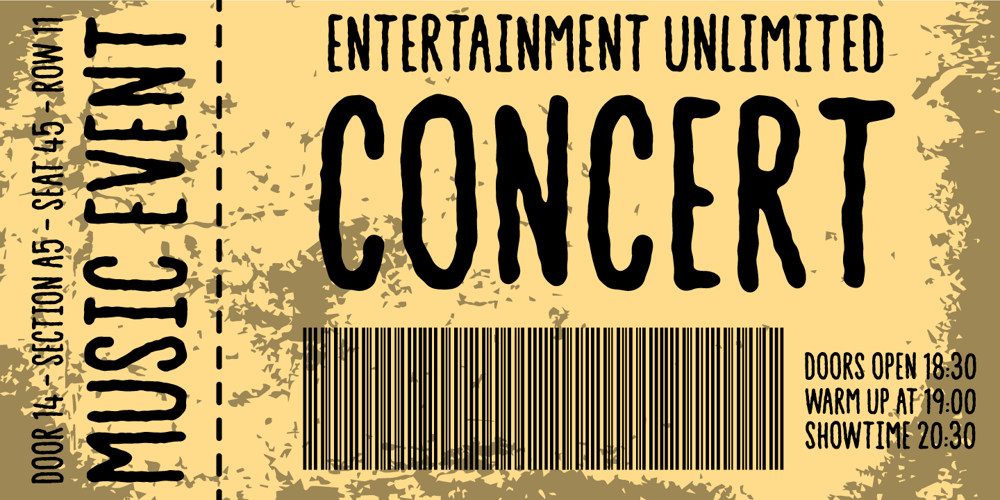
Friendly Terms Font Family was designed by Jakob Fischer and published by PizzaDude.dk. Friendly Terms contains 2 styles and family package options. A quite harmless and legible font that is very friendly to the eye. Use it when you need something legible and handmade.